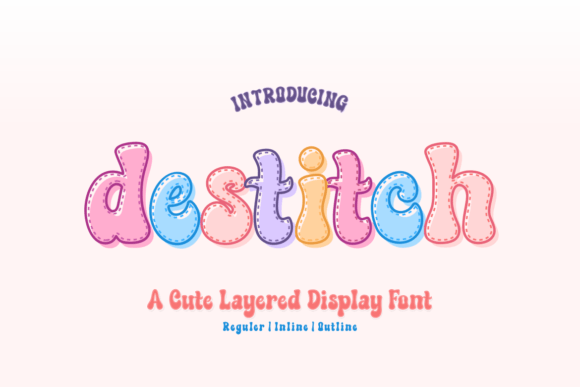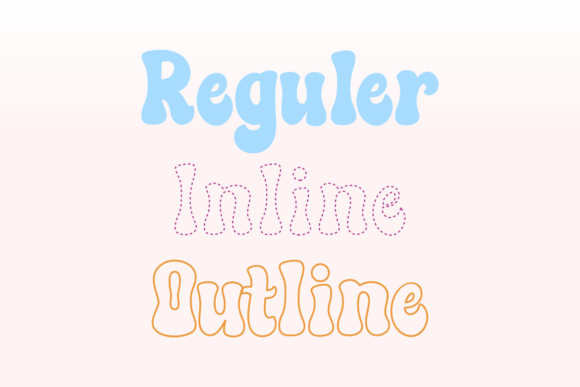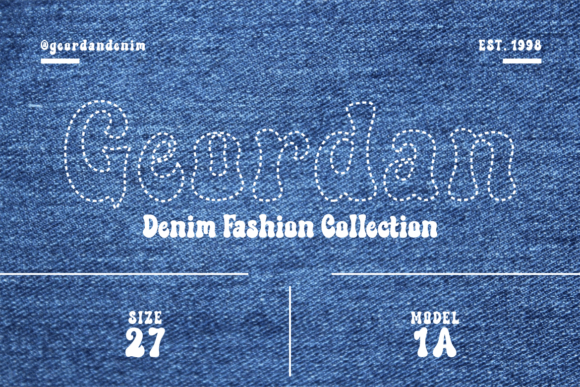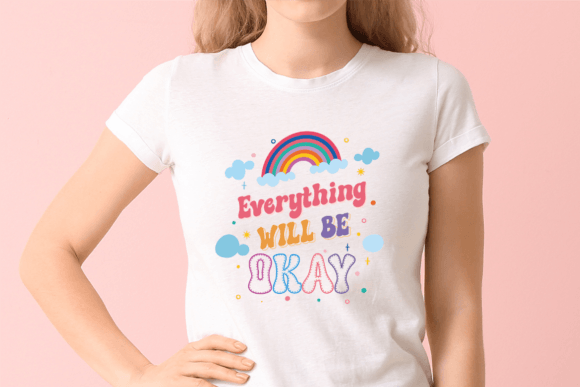
Destitch Font: A Playful Display Font for Cricut & Cute DIY Projects!
About the Destitch Font
Add a touch of class to your work with the Destitch Font, a truly exceptional typeface. Destitch is a playful display font with 3 styles (regular, inline, outline). Craft appeal, and versatility, make it an excellent choice for adding a touch of creativity and playfulness to your projects. Whether you are a hobbyist or a professional embroiderer, Destitch is sure to elevate your creations and make them stand out with their charming and fun style.
Destitch excels in headlines, logos, and short-form text for projects needing a quirky, handcrafted feel. Its playful nature makes it ideal for branding related to crafts, children’s products, or whimsical businesses. Avoid using Destitch for body text or long paragraphs; its decorative style reduces readability at smaller sizes.
Pairing Destitch with a clean sans-serif like Montserrat for body copy provides excellent contrast and readability. For a more sophisticated look, consider a classic serif such as Garamond; this combination balances Destitch’s playful energy with refined elegance. Alternatively, a geometric sans-serif like Futura can add a modern edge.
Destitch’s overall personality is best described as cheerful and handmade; its slightly imperfect forms contribute to its charming and approachable aesthetic.